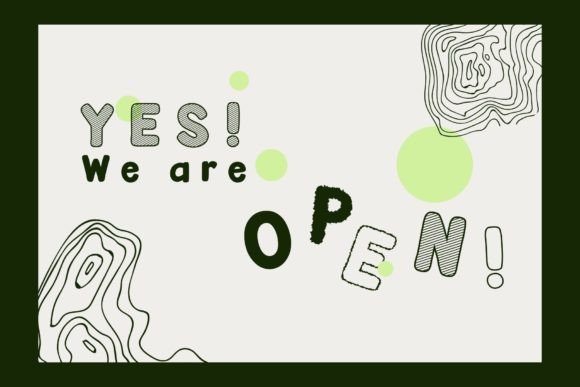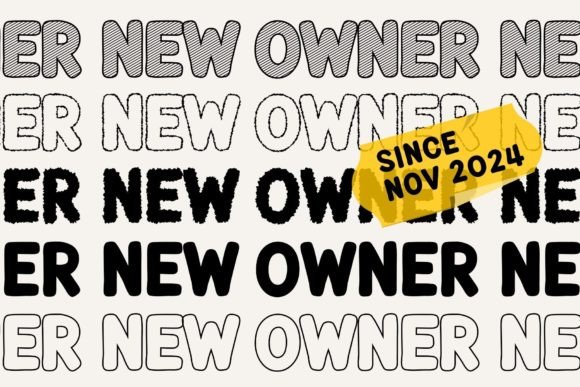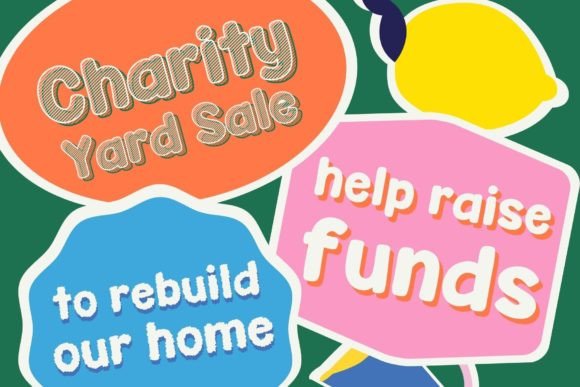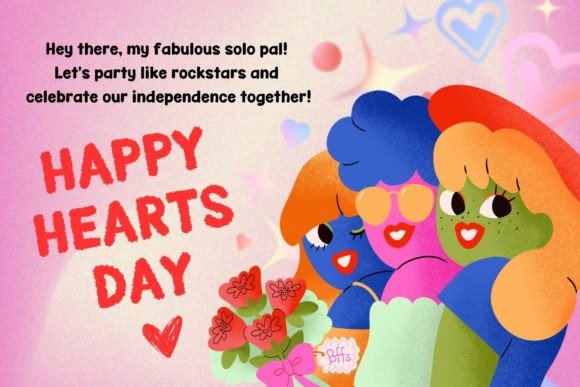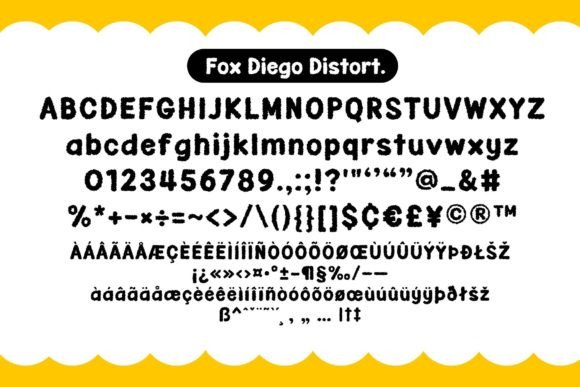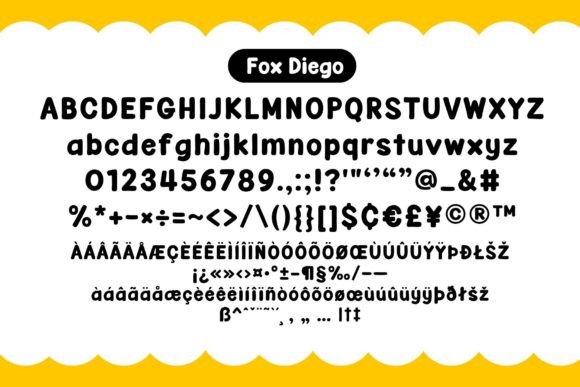
Meet Your New Design BFF: Fox Diego Font
Have you ever been working on a project, pouring your heart and soul into the design, only to feel like something’s missing? You know, that spark that makes your design stand out from the crowd? That’s exactly what happened to us when we stumbled upon the Fox Diego Font. This 5-style font is the perfect combination of cool, cute, and playful, adding a captivating and energetic touch to your designs.
Whether you’re a seasoned designer or just starting out, Fox Diego Font is a valuable addition to your toolkit. Its vibrant and expressive design makes it perfect for creating attention-grabbing headlines, t-shirt typography, banners, product labels, and more. With Fox Diego Font, you’ll be able to add a unique touch to your designs, making them truly unforgettable.
Fox Diego Font Key Features
- Font Style: Sans-Serif
- Unique Characteristics: Fox Diego Font has a unique blend of modern and vintage styles, with geometric shapes and subtle texture elements.
Designer Review: Fox Diego Font
Overall, I’d say Fox Diego Font is a fun, quirky font that can add a unique touch to your designs. ✨
- Playful and energetic feel: Fox Diego Font has a lively, carefree vibe that can be perfect for designs targeting a younger audience.
- Variety of weights: The font comes in multiple weights, making it easy to achieve different styles and moods in your designs.
- Customizable: Fox Diego Font can be easily customized to fit your design needs, from adjusting the font size to modifying the style.
- Not ideal for formal designs: Due to its playful nature, Fox Diego Font may not be the best choice for formal or professional designs.
- Limited legibility: In some cases, the font can be difficult to read, especially in smaller sizes or when used in body text.
- No international support: Fox Diego Font may not include characters or glyphs for non-English languages, which can limit its use in global designs.
Overall, Fox Diego Font is a great choice for designers looking to add a touch of whimsy to their designs. While it may not be suitable for all projects, its unique style and versatility make it a valuable addition to any design toolkit.
Tips for Getting the Most Out of Fox Diego Font
1. Use the Fox Diego font for creative and playful projects, such as children’s book illustrations or advertising campaigns.
2. Experiment with different font sizes and styles to create a unique visual effect.
3. Combine the Fox Diego font with other creative elements, such as graphics and images, to add visual interest.
1. Children’s book illustrations and designs.
2. Advertising campaigns and promotional materials.
3. Creative and playful projects, such as posters and flyers.
Alternatives to Fox Diego Font for Designers
Great Vibes Font is a modern, elegant script font that is perfect for creating a unique and stylish design. It is ideal for use in titles, headings, and quotes where a touch of sophistication is desired.
Compared to Fox Diego Font, Great Vibes Font has a more refined and polished look, making it suitable for high-end branding and marketing materials. Fox Diego Font, on the other hand, has a more playful and casual feel.
Carolyna Pro Font is a beautiful, handwritten script font that is perfect for creating a warm and inviting design. It is ideal for use in titles, headings, and body text where a personal touch is desired.
Compared to Fox Diego Font, Carolyna Pro Font has a more rustic and vintage feel, making it suitable for use in creative and artistic projects. Fox Diego Font, on the other hand, has a more modern and sleek look.
Alex Brush Font is a elegant, handwritten script font that is perfect for creating a sophisticated and refined design. It is ideal for use in titles, headings, and quotes where a touch of luxury is desired.
Compared to Fox Diego Font, Alex Brush Font has a more delicate and refined look, making it suitable for use in high-end branding and marketing materials. Fox Diego Font, on the other hand, has a more bold and playful feel.